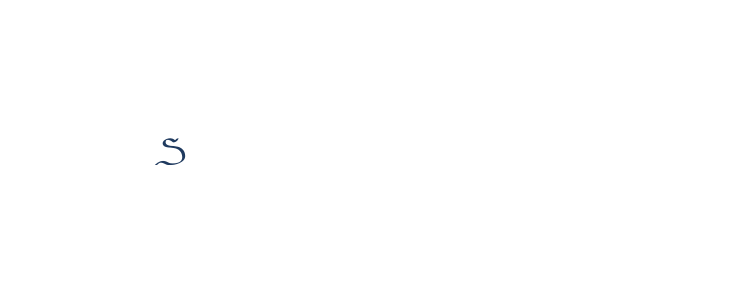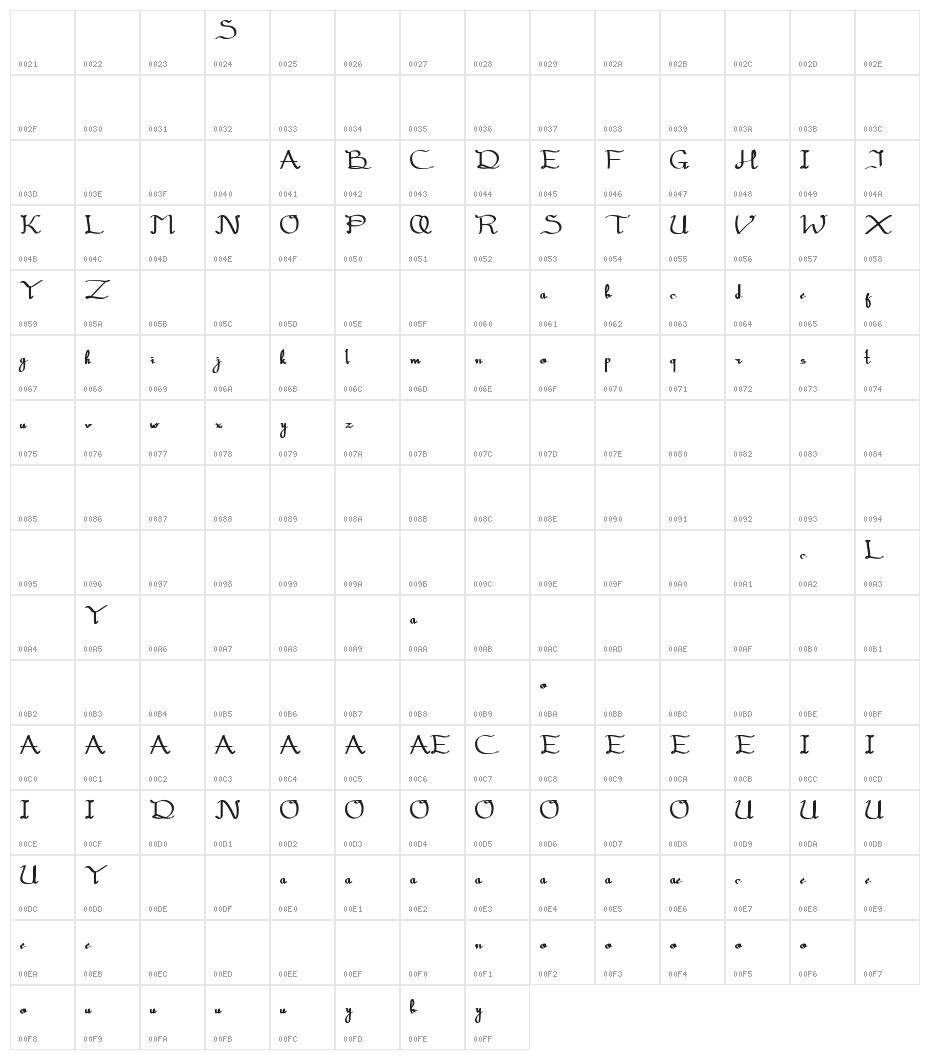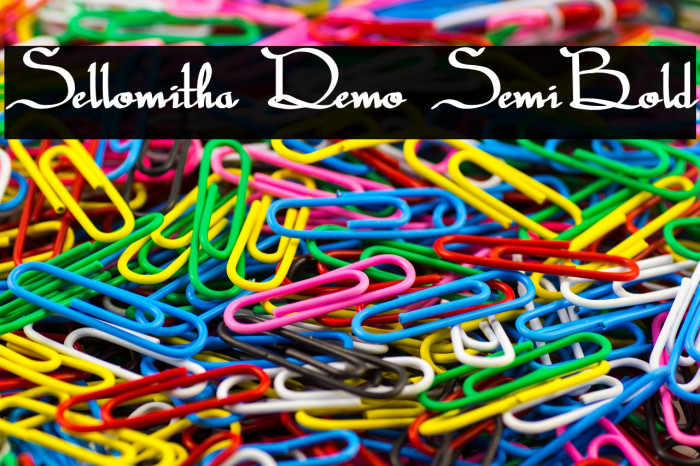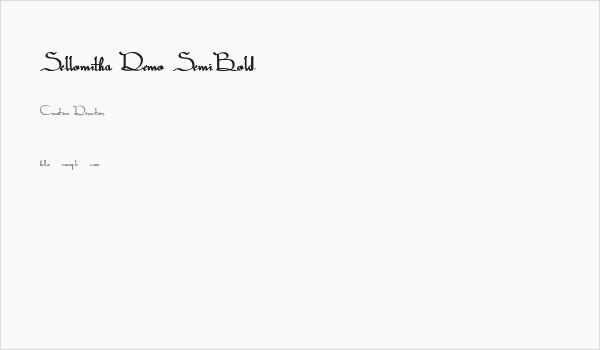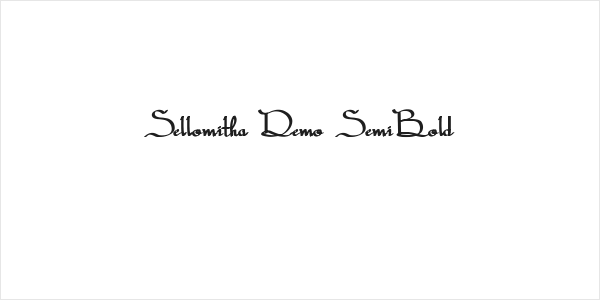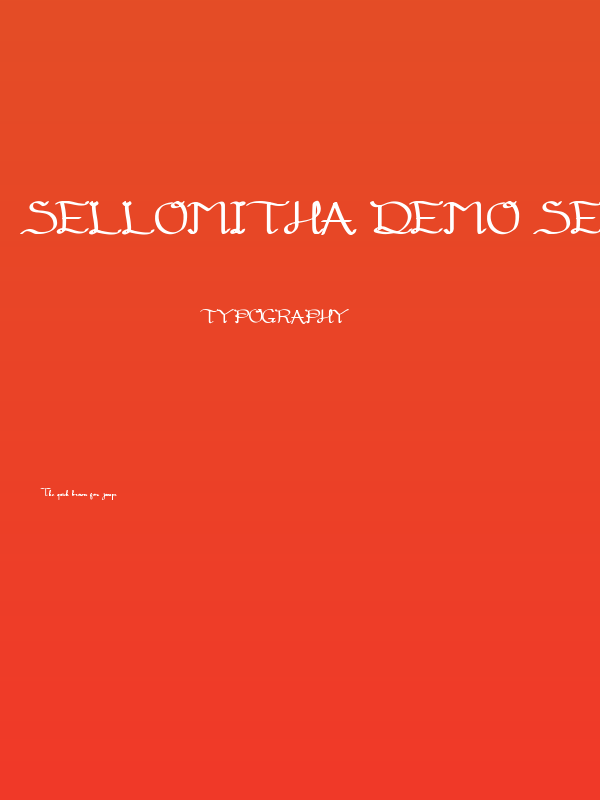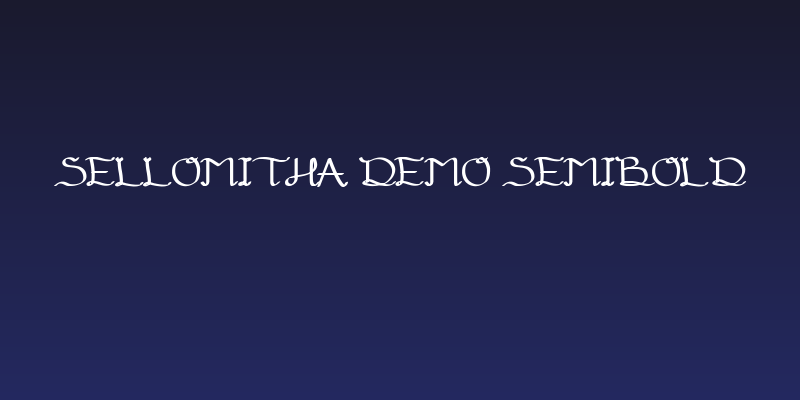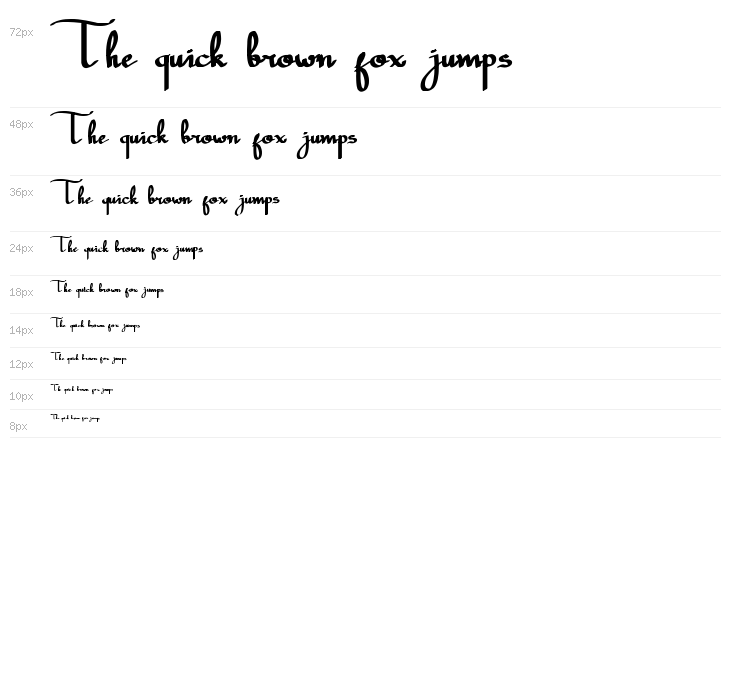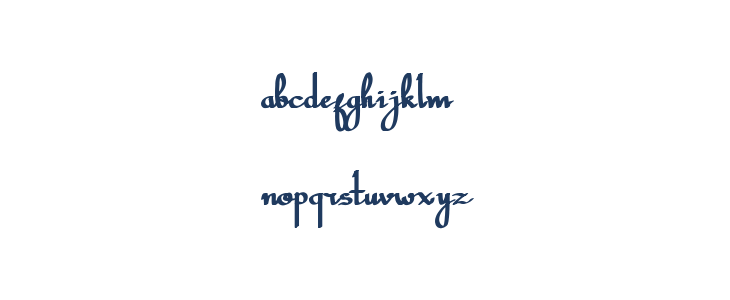
Sellomitha Demo SemiBold Font
Sellomitha Demo SemiBold Description
This font features a unique blend of elegance and playfulness, characterized by its flowing, cursive style. The uppercase letters exhibit a decorative flair with intricate loops and swirls, while the lowercase letters maintain a more consistent, yet still ornate, appearance. The overall design is reminiscent of calligraphy, with a modern twist that adds a touch of sophistication. The font's semi-bold weight ensures readability while maintaining its artistic appeal. It is well-suited for creative projects that require a touch of elegance and personality.
Sellomitha
| Use Case | Logos, Invitations, Decorative Text |